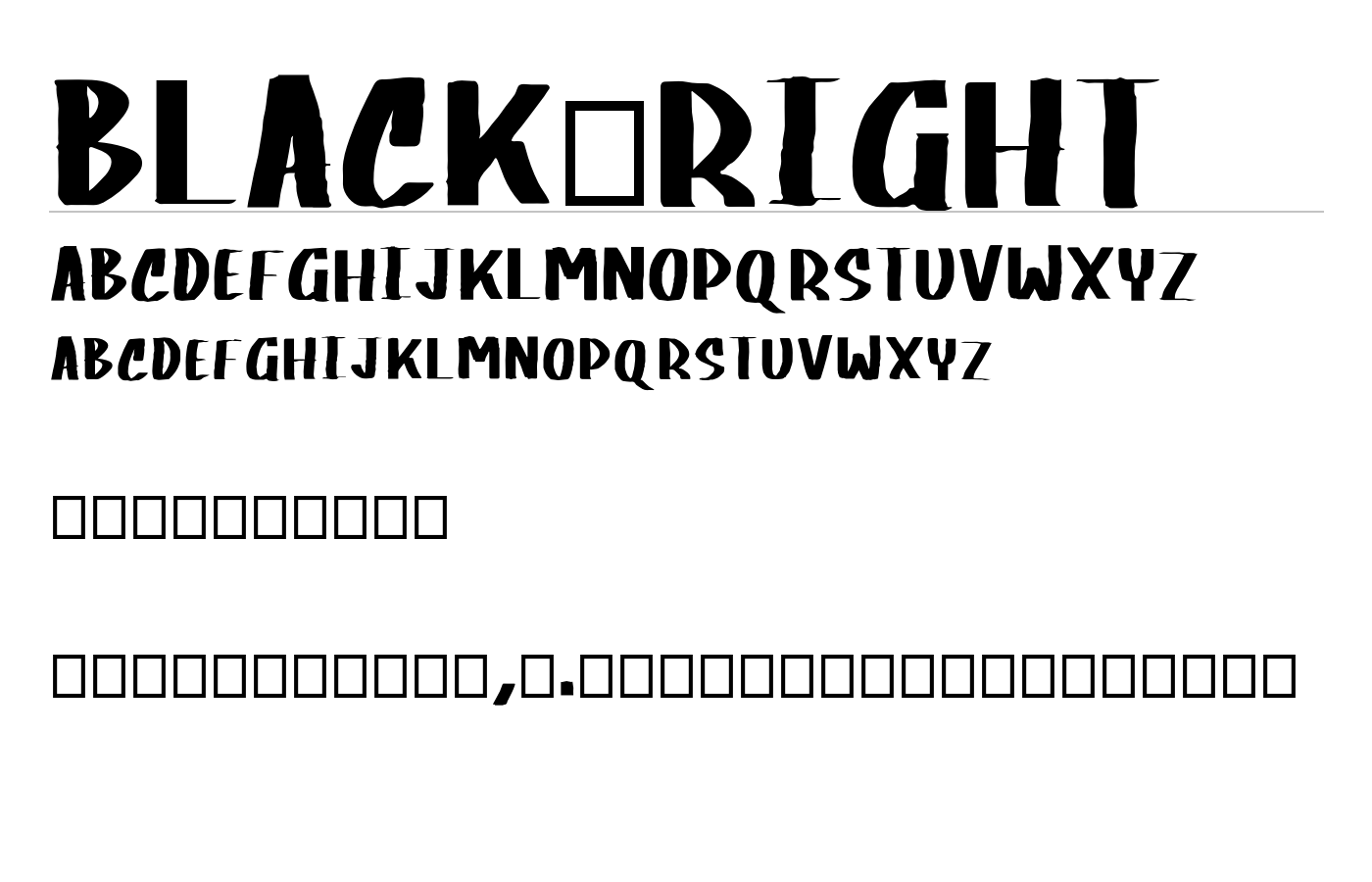
BLACK_RIGHT is a bold, condensed sans serif font with a strong, hand-crafted feel. Its irregular, slightly rough edges and varied stroke widths give it a playful yet assertive personality, making it ideal for attention-grabbing headlines, posters, and branding that seeks a unique, artistic touch. This font works well where a bold statement is needed without losing a sense of creativity and character.
| Font family | BLACK_RIGHT Font |
| Designer | harisanggar |